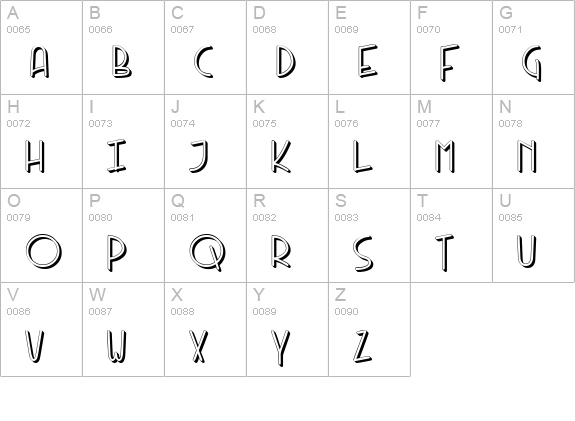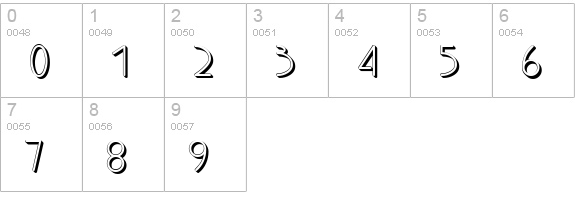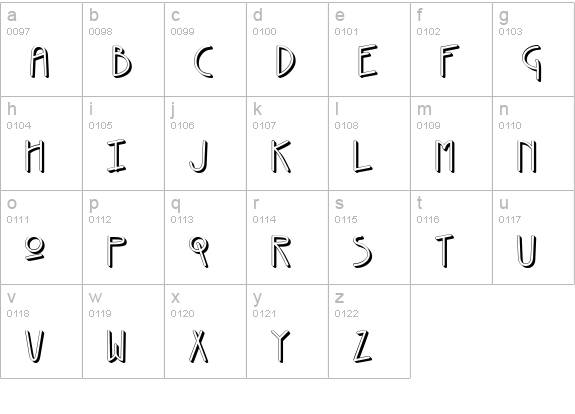
KneeblsExtruded Font Details
Introducing KneeblsExtruded, a captivating and versatile font that exudes a sense of boldness and modernity. Its sleek and sharp edges add a touch of sophistication to any design project, making it perfect for headlines, logos, posters, and more. This font effortlessly captures attention and leaves a lasting impression. KneeblsExtruded comes in a variety of weights and styles, allowing for endless possibilities when it comes to creative expression. Whether you're aiming for a sleek and minimalistic look or a vibrant and eye-catching design, this font has got you covered. One of the most remarkable features of KneeblsExtruded is that it is available for free download at FontsMarket.com. This means that you can easily acquire this incredible font without any cost, making it accessible to designers, artists, and enthusiasts alike. The legibility of KneeblsExtruded is exceptional, ensuring that your message is conveyed clearly and effectively. Its clean lines and precise spacing contribute to an effortless reading experience, making it a reliable choice for both print and digital media. In addition to its aesthetic appeal, KneeblsExtruded also offers great versatility. It seamlessly adapts to different design contexts, effortlessly complementing various styles and themes. From futuristic and tech-inspired designs to elegant and classic compositions, this font seamlessly integrates into any project, enhancing its visual impact. So, whether you're a professional designer looking to add a touch of modernity to your work or a beginner exploring the world of typography, KneeblsExtruded is the perfect choice. Its captivating design, versatility, and the fact that it is freely available for download at FontsMarket.com make it an invaluable asset for any creative endeavor. Embrace the power of KneeblsExtruded and elevate your designs to new heights.